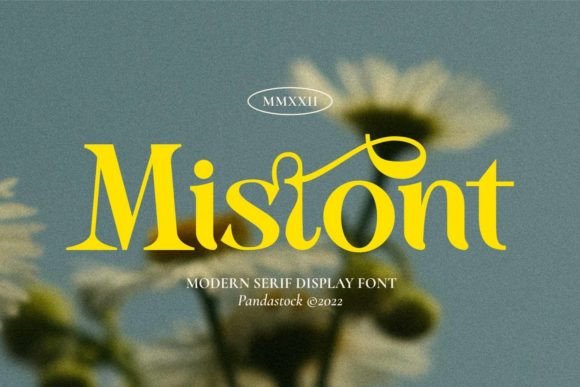
Behold Mistont, the serif display font that will ignite your creativity and captivate your audience. This exquisite font, meticulously crafted by Imoodev, is your gateway to a world of elegance and sophistication. With its timeless appeal and versatility, Mistont is the perfect choice for crafting stunning wedding invitations, alluring posters, captivating branding designs, and any project that demands an air of distinction.
Immerse yourself in the world of Mistont and discover a font that transcends the mundane. Its intricate curves and graceful strokes evoke a sense of wonder and create a lasting impression. Whether you're a seasoned designer or just starting your creative journey, Mistont is your perfect companion, ready to elevate your designs to new heights.
With its diverse character set and extensive language support, Mistont adapts seamlessly to your every need. Create captivating headlines that command attention, craft elegant body text that flows effortlessly, and design logos that exude professionalism. The possibilities are endless with Mistont, your trusted partner in the world of typography.